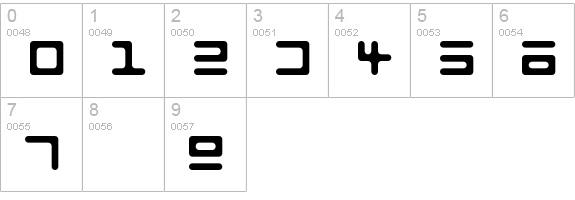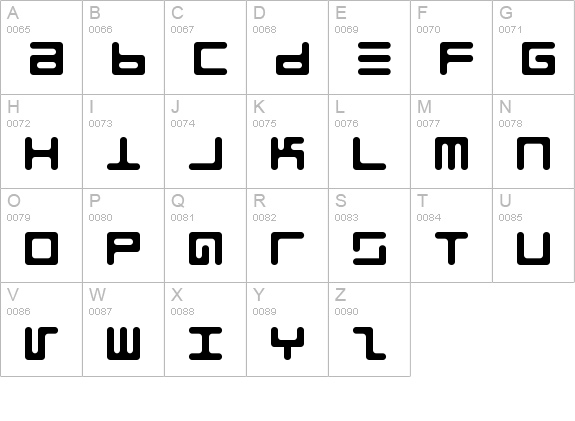
EppsEvans-Round Font Details
EppsEvans-Round is a modern and stylish sans-serif font that exudes elegance and sophistication. With its rounded edges and clean lines, this font is versatile and perfect for a wide range of design projects. Whether you're creating a logo, branding materials, or editorial designs, EppsEvans-Round will add a touch of class to your work. What sets EppsEvans-Round apart is not only its aesthetic appeal but also its accessibility. This font is available for free download at FontsMarket.com, making it easy for designers and creatives to access and use in their projects without any cost. Embrace the beauty and versatility of EppsEvans-Round in your designs and elevate them to the next level.